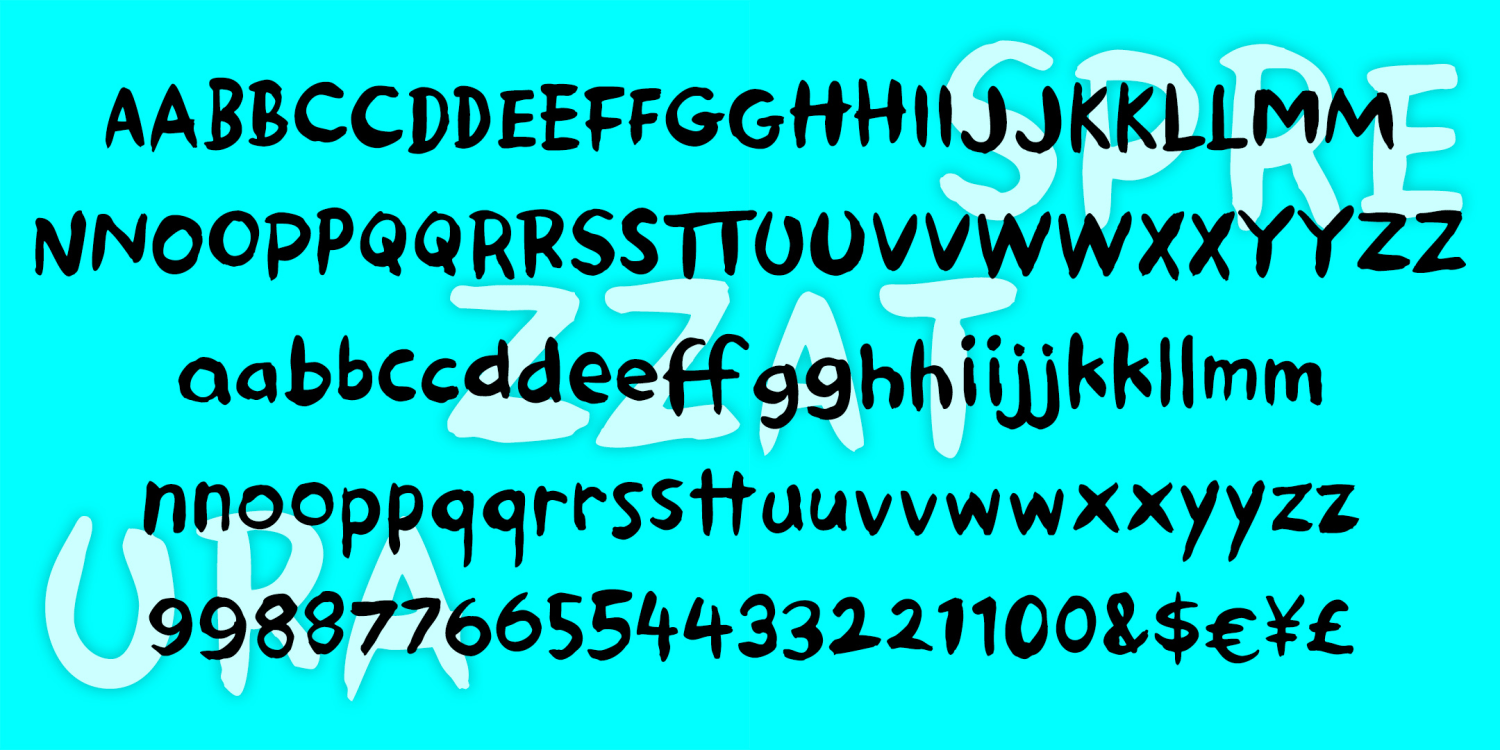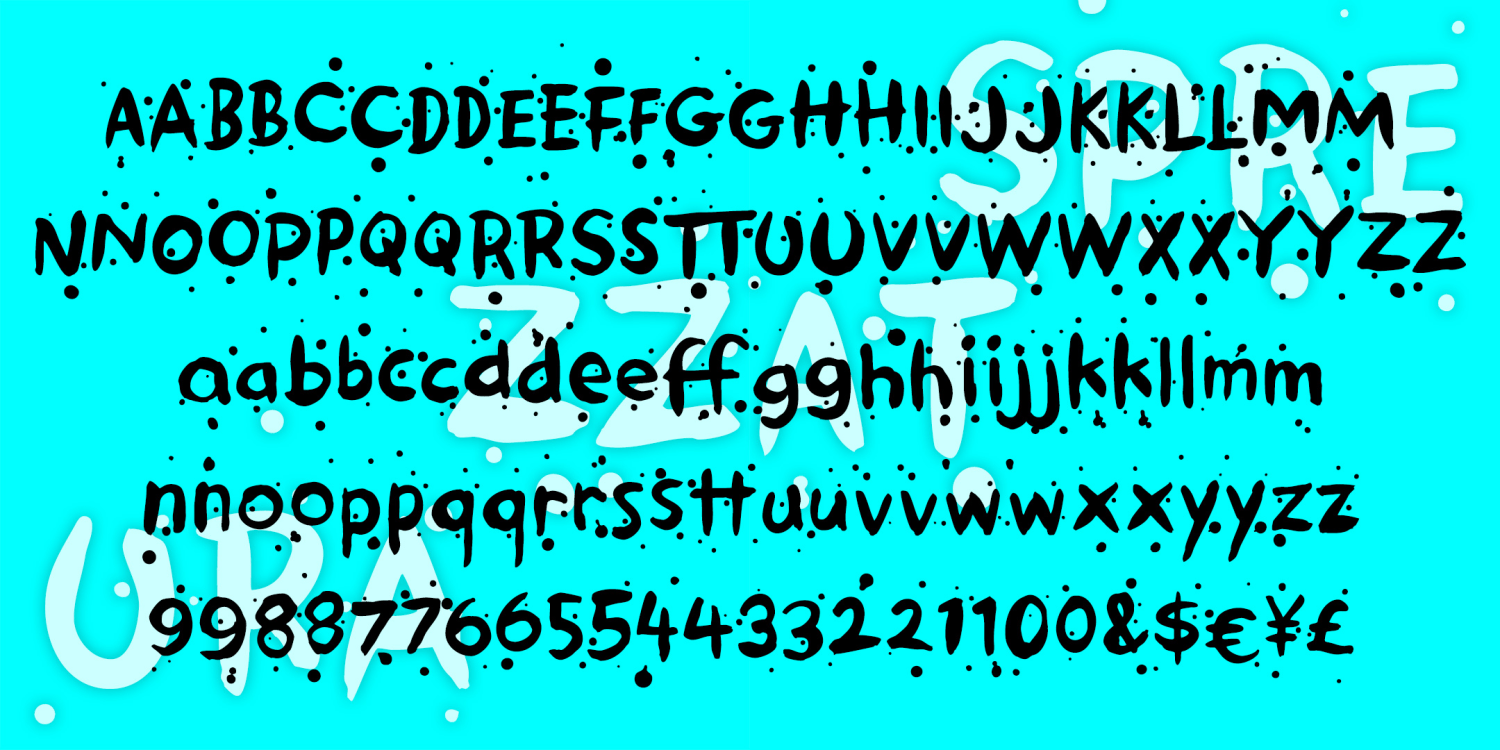
Sprezzatura
SPREZZATURA is a fun, casual font with the whimsy of a love note and the boldness of a protest sign. Sprezzatura looks like brush and ink lettering because that's how it started. There are two versions of each letter for a more handmade feel. The OpenType font also makes use stylistic alternates and discretionary ligatures for a totally hand-lettered effect. Available with and without the spatters, or you can mix them for a less spattered look.
By the way, Sprezzatura is an Italian word meaning "studied carelessness."
Sprezzatura Regular
Sprezzatura Dots
The Sprezzatura font family includes 335 glyphs.